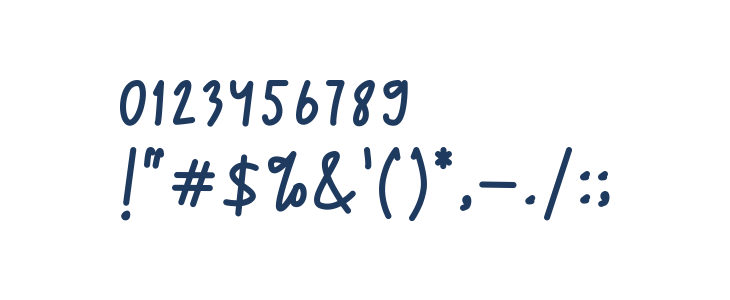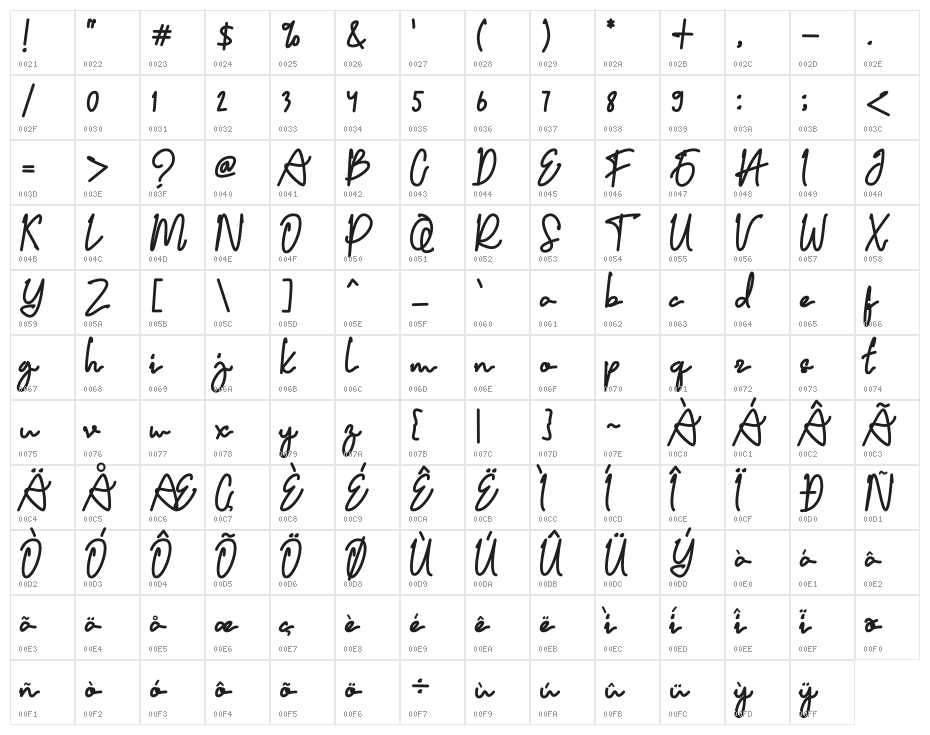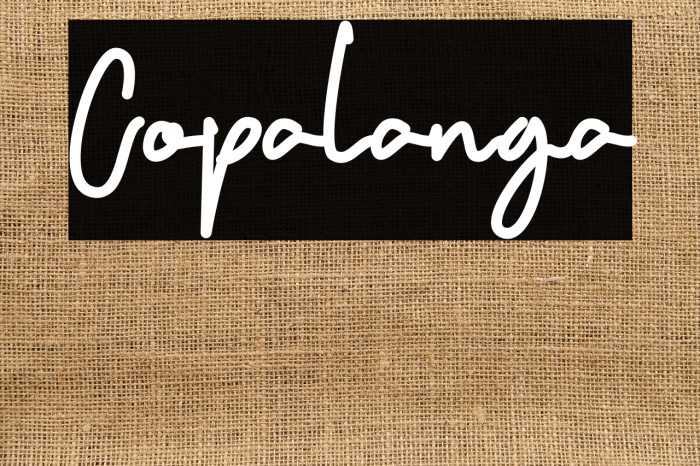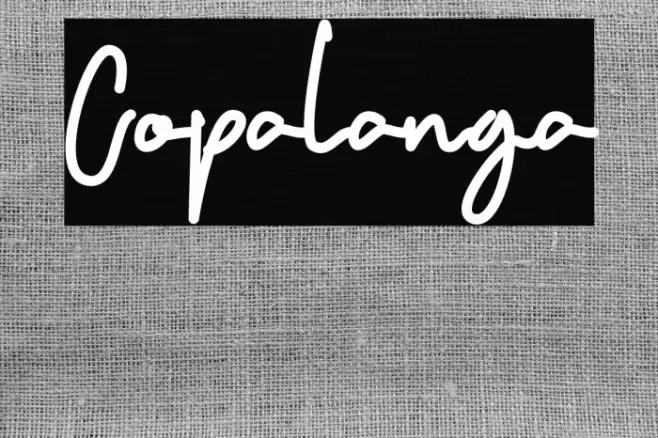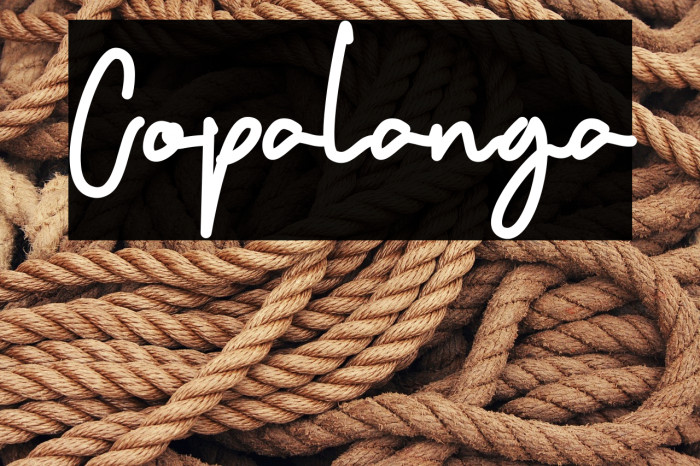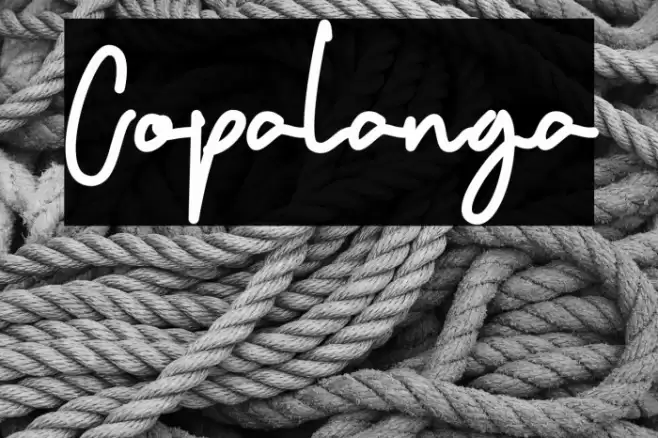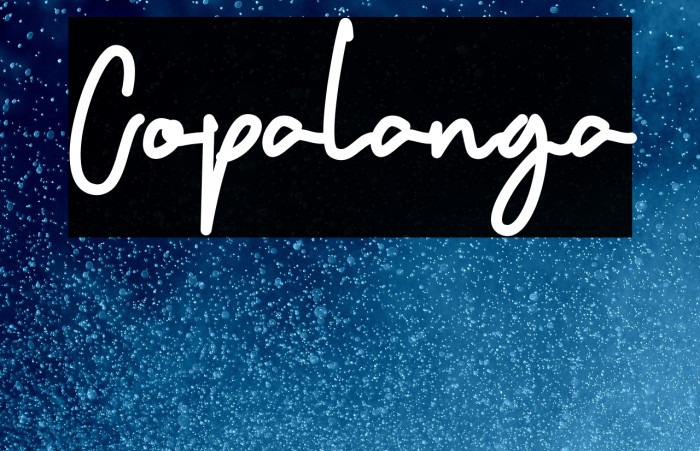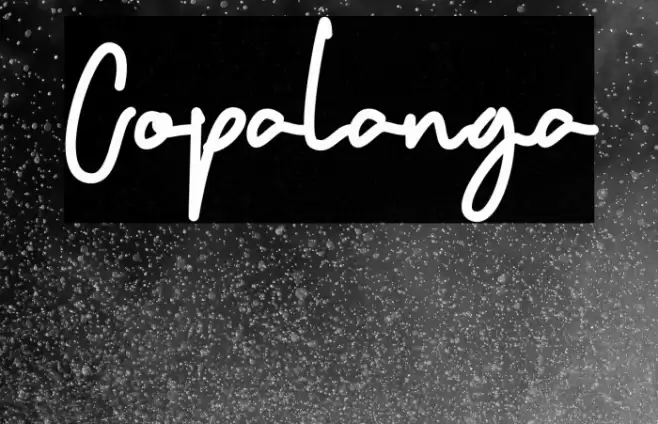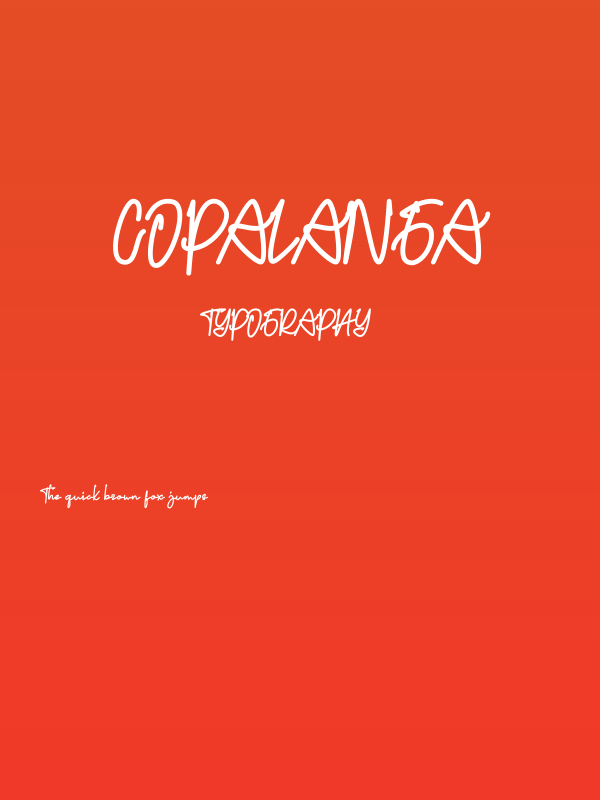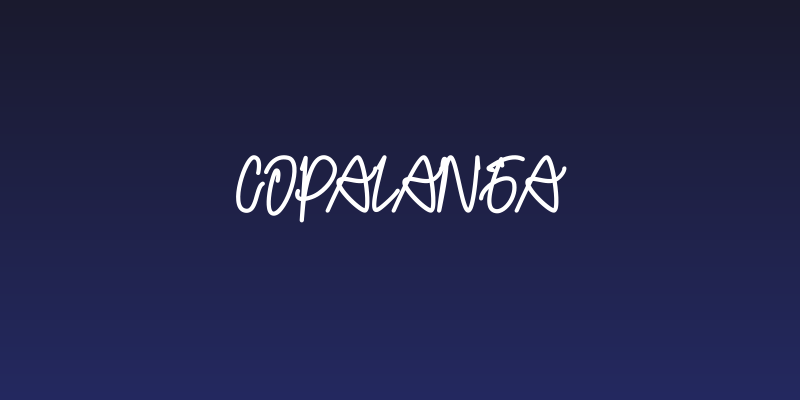
Copalanga Font
Copalanga Description
This font exudes a casual and playful vibe with its handwritten style. The letters are connected in a fluid manner, reminiscent of cursive writing, which gives it a personal and informal touch. The strokes are bold and consistent, providing a strong presence on the page. The uppercase letters are slightly larger and more pronounced, while the lowercase letters maintain a smooth flow. Numbers and special characters are crafted with the same playful energy, making them stand out while remaining cohesive with the overall design. This font is perfect for projects that require a personal, friendly, and approachable feel.